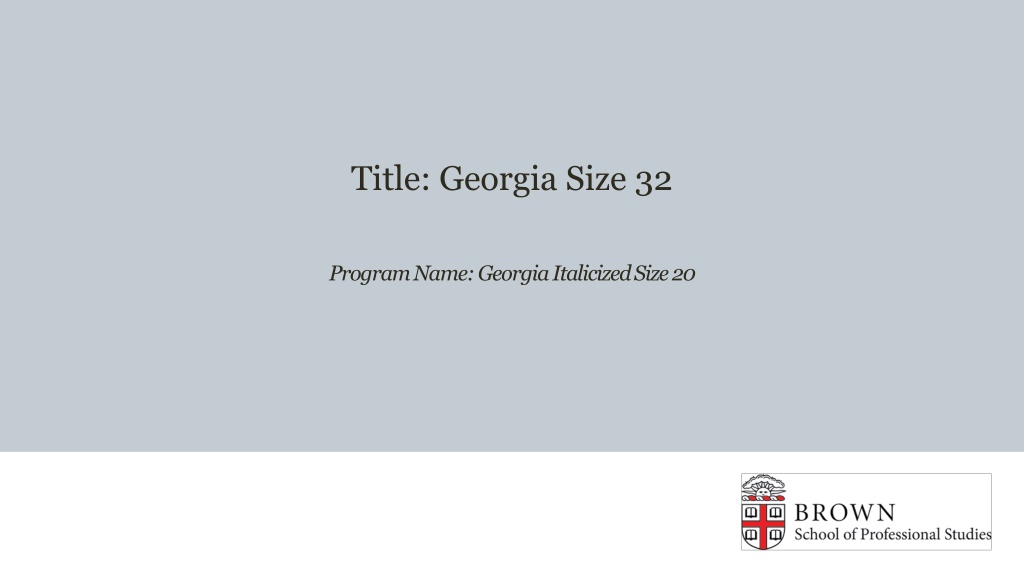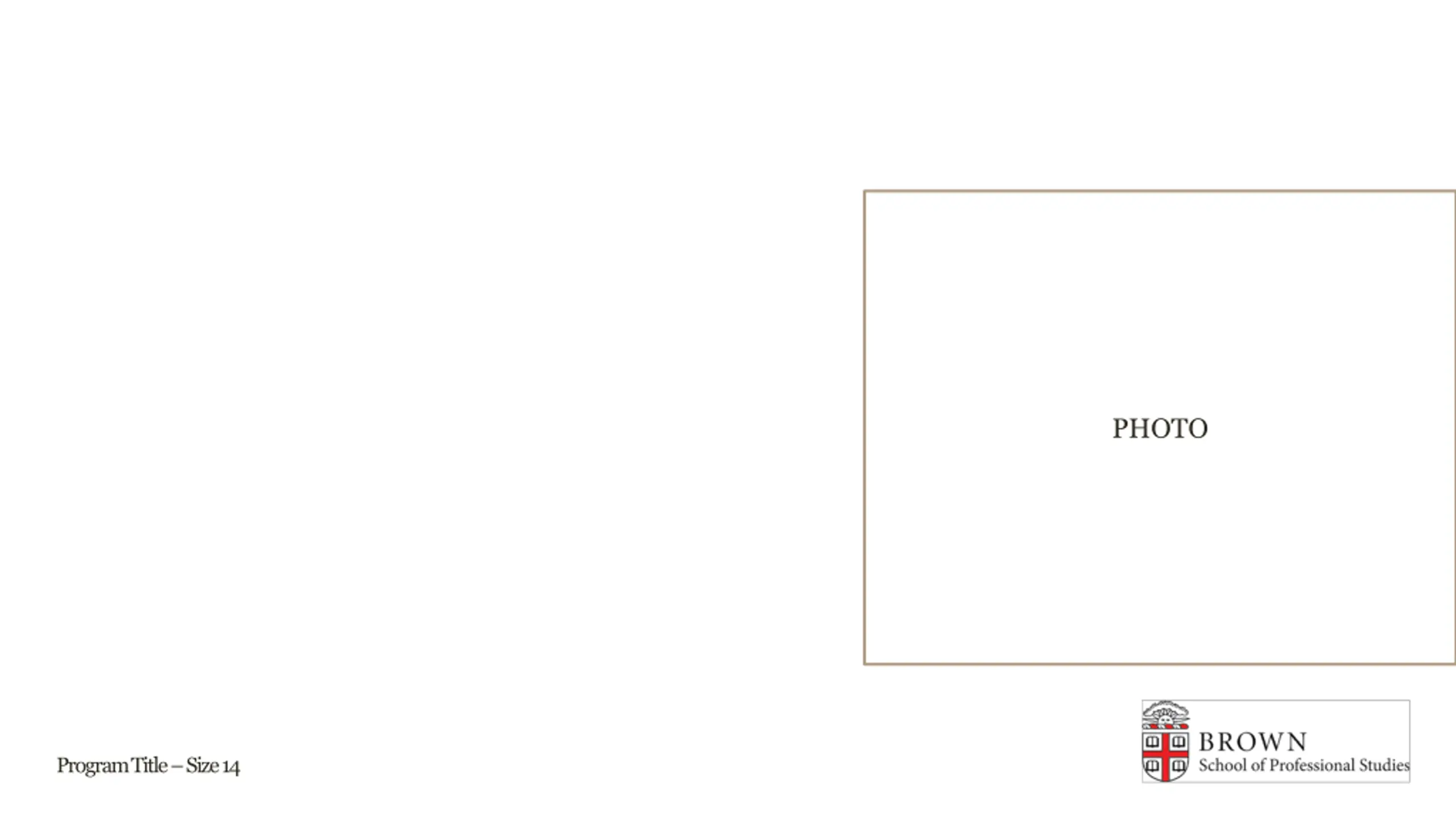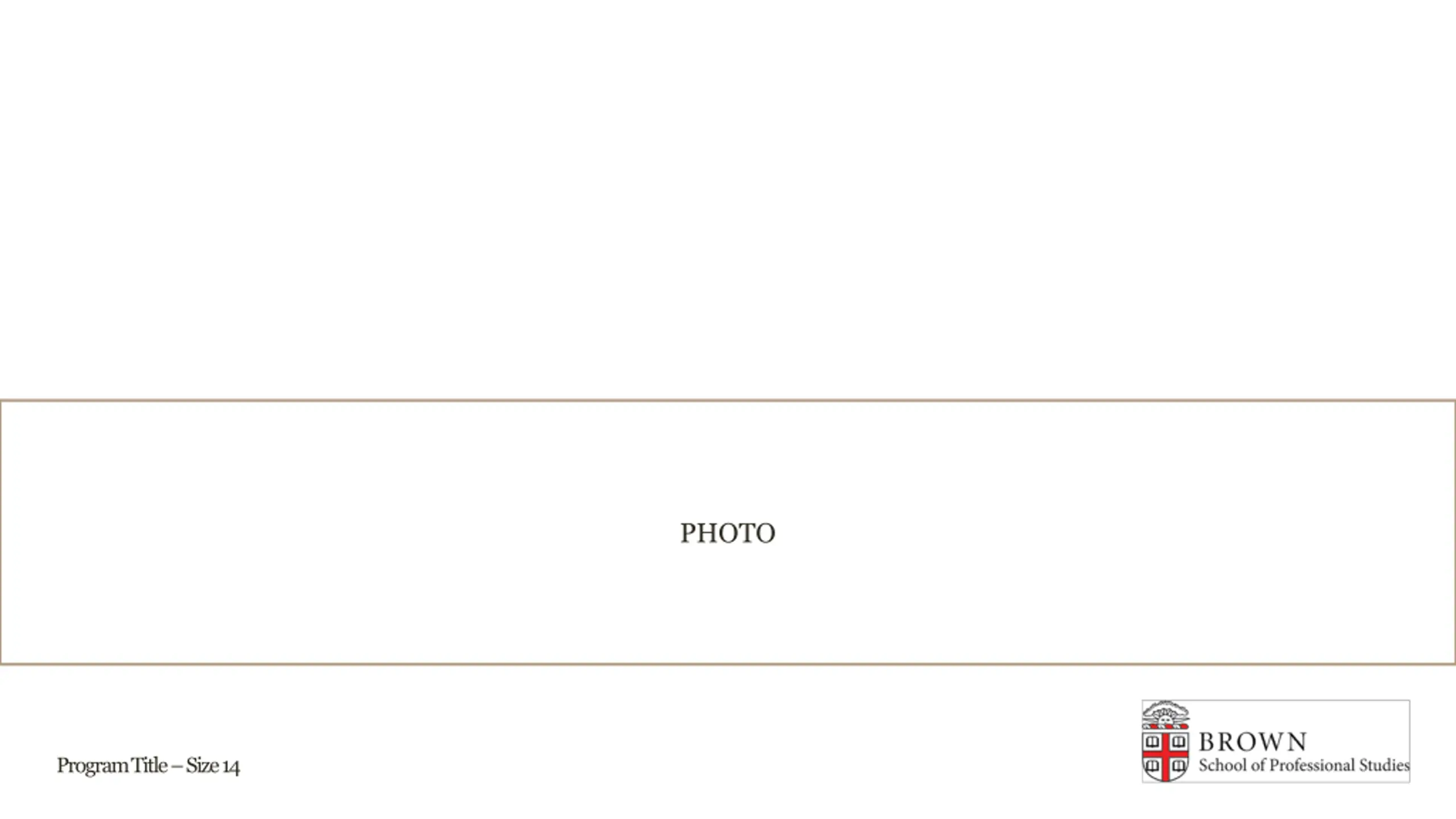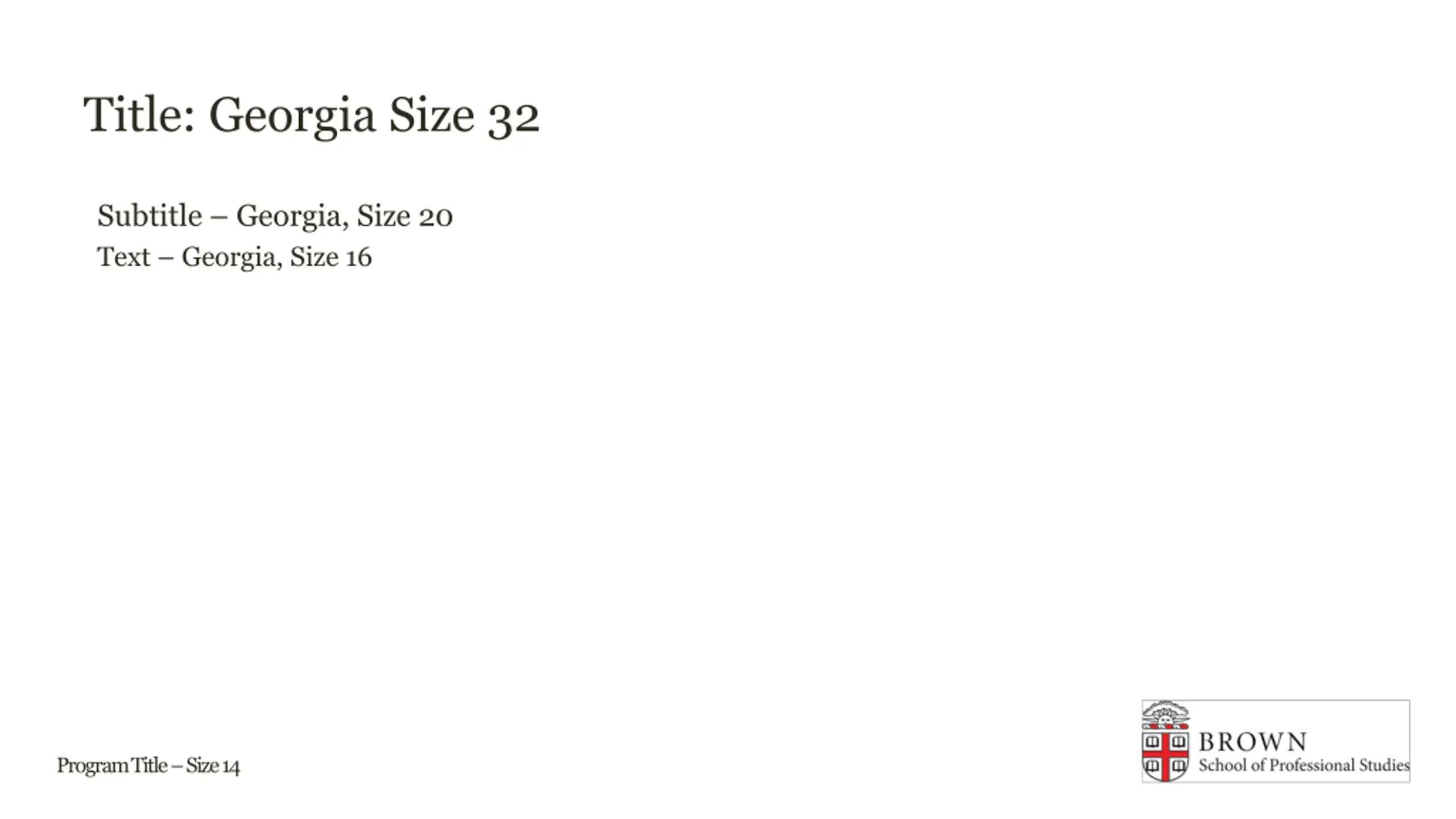
Stunning Georgia Fonts for Typography Enthusiasts
Explore the elegance of Georgia fonts in various sizes and styles. From size 32 to italicized 20, discover the beauty of Georgia typography for your design projects. Dive into the world of Georgia fonts with this comprehensive showcase.
Title: Georgia Size 32 Program Name: Georgia Italicized Size 20
Title: Georgia Size 32 Subtitle Georgia, Size 20 Text Georgia, Size 16 Program Title Size 14
PHOTO Program Title Size 14